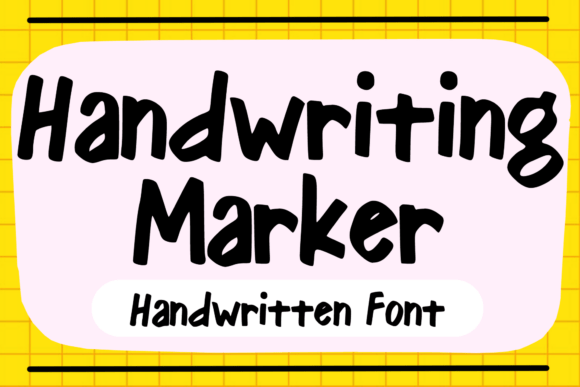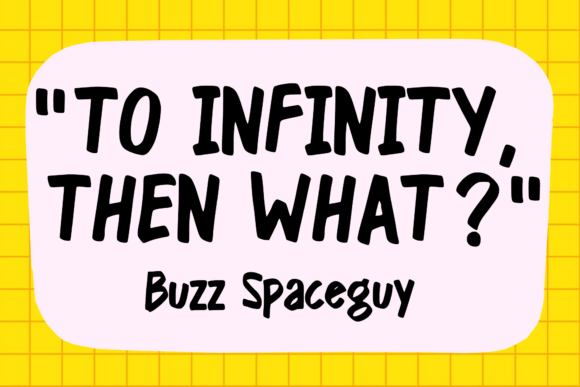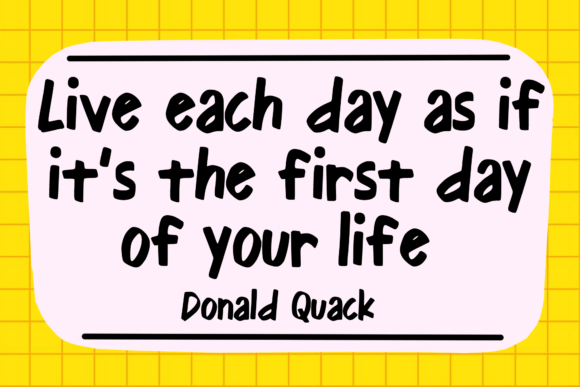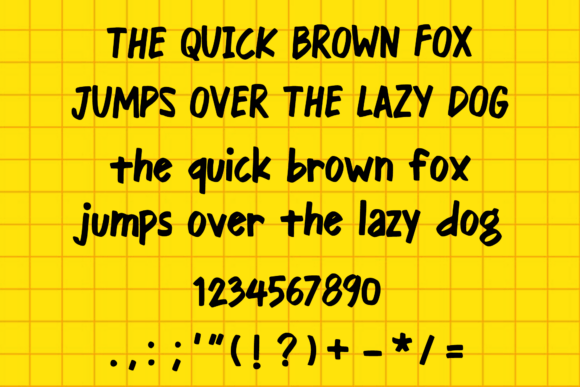
Handwriting Marker Font
About the Handwriting Marker Font
Let us introduce you to Handwriting Marker Font, where timeless design meets modern craftsmanship. Handwriting Marker is a cool and fun marker hand lettered font. You can use it for anything ranging from t-shirts, book designs, and greeting cards to stickers and posters, packaging designs, or anything that needs a casual touch, it will be your perfect font to pick. Fall in love with its incredibly versatile style, and use it to create lovely designs!
Handwriting Marker excels in display applications such as headlines, short taglines, and logos where its playful, casual energy shines. It’s ideal for branding projects targeting a younger demographic or those emphasizing a fun, approachable feel. Use it effectively on packaging, posters, and social media graphics. However, its informal nature makes it unsuitable for body text or UI elements requiring high readability.
The font’s slightly irregular letterforms lend a handcrafted charm. To balance this, pair it with a clean sans-serif like Open Sans for body copy or a geometric sans-serif like Montserrat for a more modern feel. For a touch of elegance, consider pairing it with a delicate serif like Lora. Avoid pairing it with other script fonts to prevent visual clutter.
Handwriting Marker’s core personality is undeniably friendly and informal. Its best applications are projects requiring a bold, hand-drawn aesthetic that conveys approachability and creativity. Think craft breweries, children’s products, or quirky cafes.
Handwriting Marker Font Usage Examples
Handwriting Marker Font Example